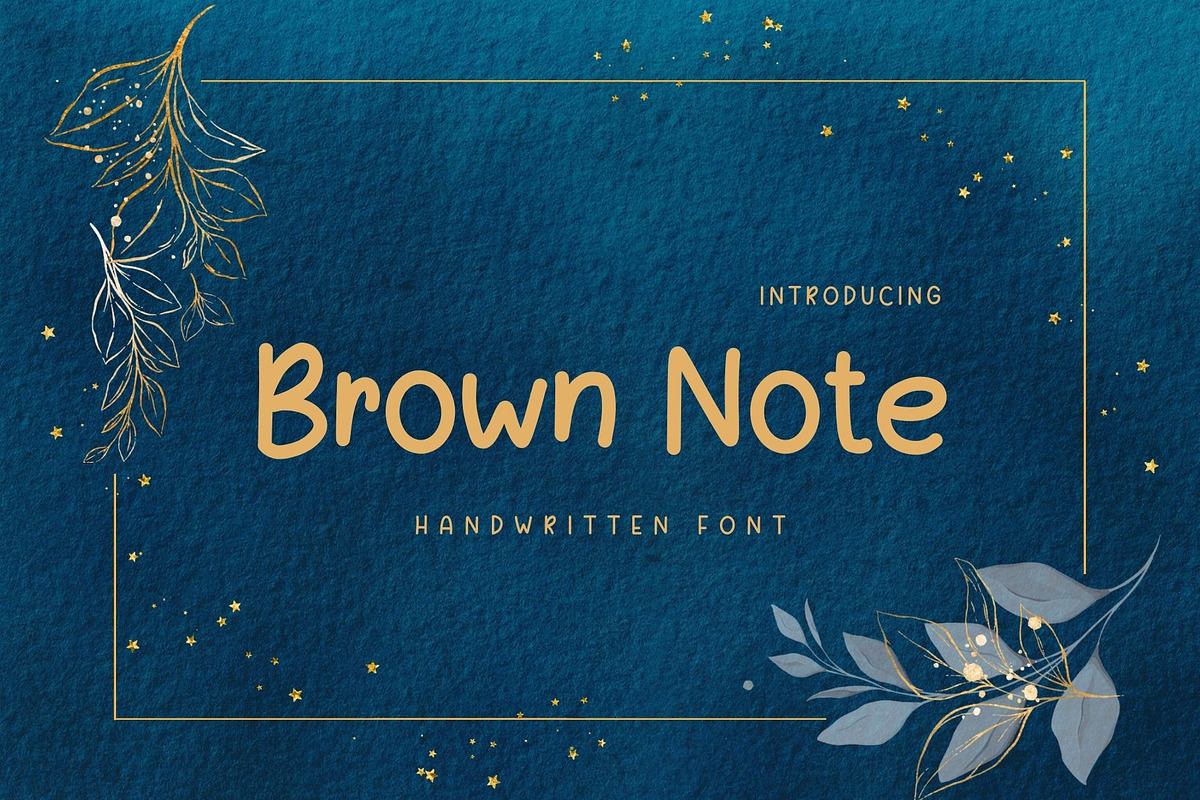
Please note, to use this font for commercial purposes, you must purchase the full version. Brown Note is a charming handwritten font that brings a personal and artistic touch to your designs. With its natural flow and unique character, this font is perfect for logos, invitations, greeting cards, and other creative projects. Whether you're designing a custom brand identity, a wedding invitation, or a playful greeting card, Brown Note adds authenticity and warmth to your work. Test it out and enjoy free download access for personal use. Experience the creative elegance of Brown Note - Handwritten Font Free Download before purchasing the commercial license. Add a personal, handwritten style to your designs with Brown Note.